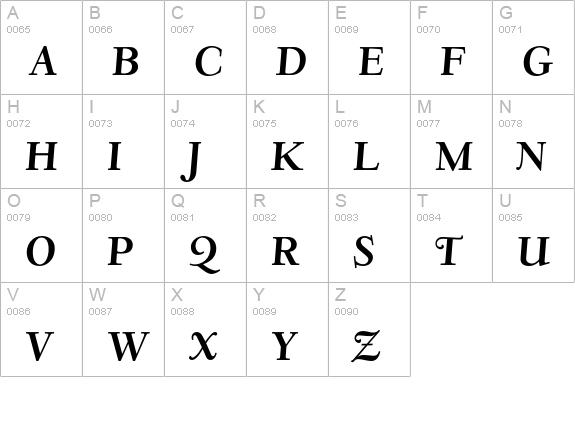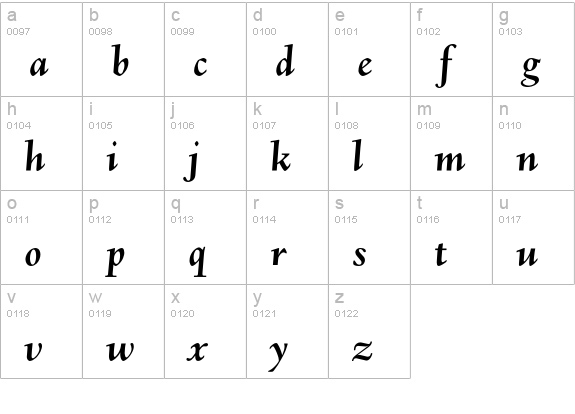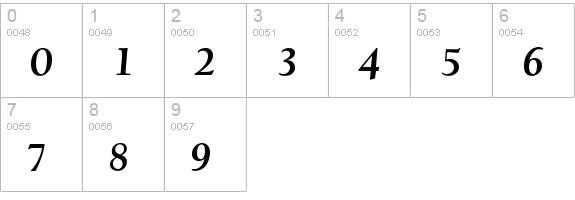
Deepdene BQ Bold Italic Font Details
Deepdene BQ Bold Italic is a strong, high-contrast, italic variant in the Deepdene typeface family \xE2\x80\x94 well suited to headlines, attention-grabbing titles, and strong calls-to-action.
Deepdene BQ Bold Italic is a sophisticated and elegant font that exudes a sense of modernity and style. Its bold and italic design gives it a unique and eye-catching appearance, making it perfect for adding a touch of sophistication to any project. Whether you're designing a logo, creating marketing materials, or working on a website, Deepdene BQ Bold Italic will surely make your text stand out. The best part is that Deepdene BQ Bold Italic is available for free download at FontsMarket.com. You can easily access this stunning font and enhance your designs without any cost. Don't miss out on the opportunity to elevate your projects with this beautiful typeface. Download Deepdene BQ Bold Italic today and take your designs to the next level!